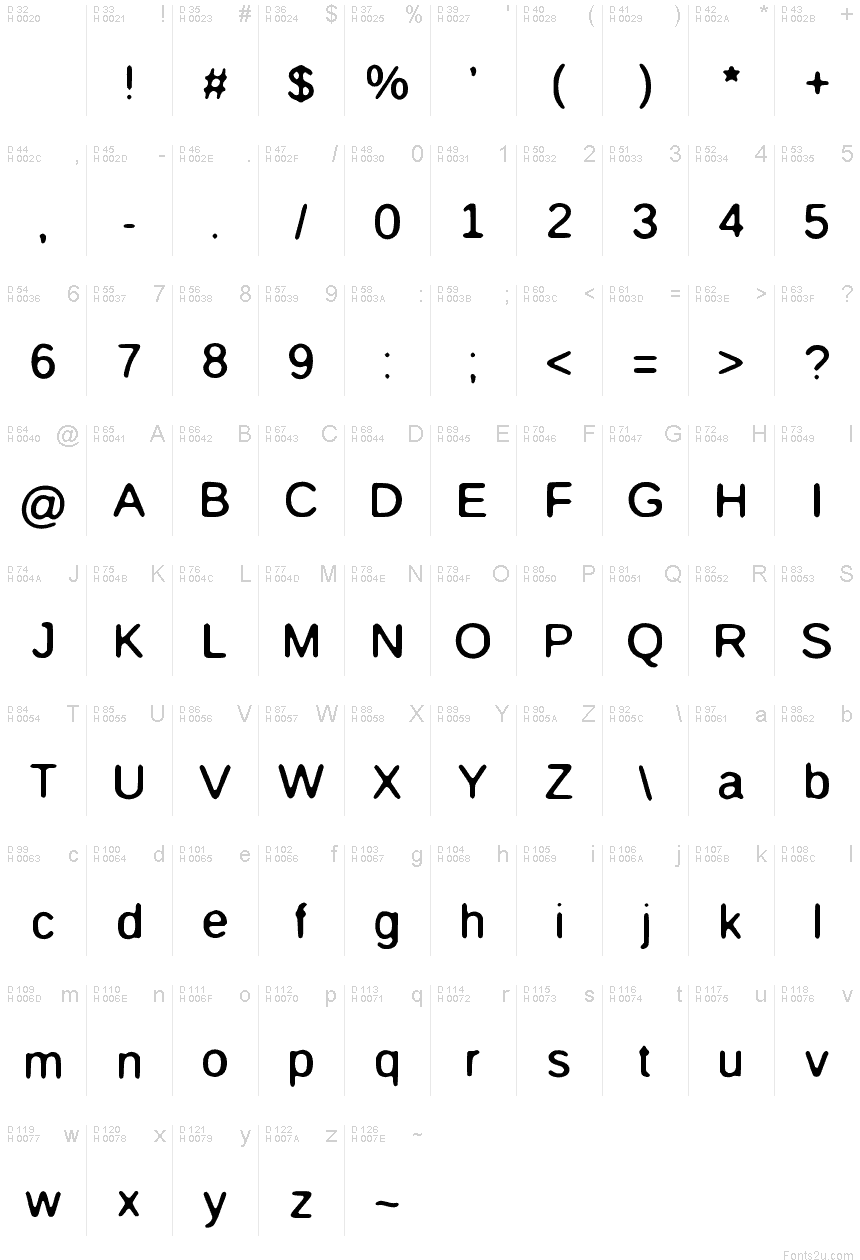
Maw, created by Socialh, is a free whimsical display font with tall, rounded letters and an uneven hand-shaped finish that feels friendly and informal. Its strokes shift from slender to broad, giving the alphabet a soft, slightly wobbly silhouette. The pinched joins and open curves make individual letters feel lively and elastic.
Independent cafes and children's brands could use it across packaging, signage, and merchandise, where the loose shapes suggest an approachable, homegrown identity. It also fits comedy posters and playful event graphics.